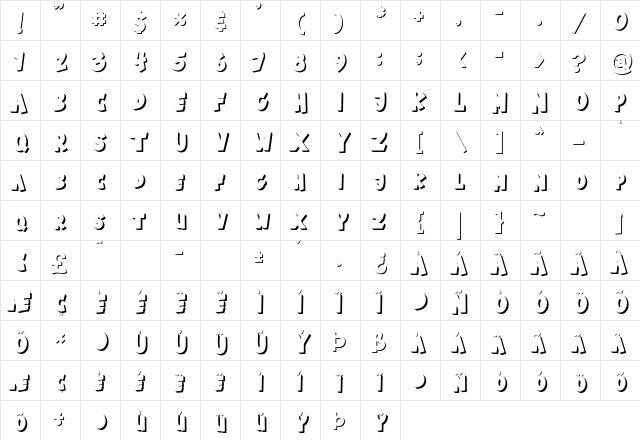
Baby Monsta Shadow Regular Font Preview
Baby Monsta Shadow Regular
Baby Monsta Shadow Regular Font Details
Design Context for Baby Monsta Shadow Typeface
Baby Monsta Shadow brings ornamental detail and strong personality to headlines and identities, where visual impact matters more than quiet functionality.
Font Pairing: Pair with a clean neutral sans-serif for body copy to let Baby Monsta Shadow's character lead without overwhelming the composition.
Pro Tip: Treat Baby Monsta Shadow as the centrepiece of your typographic hierarchy. One strong heading set in a decorative face can carry an entire layout.